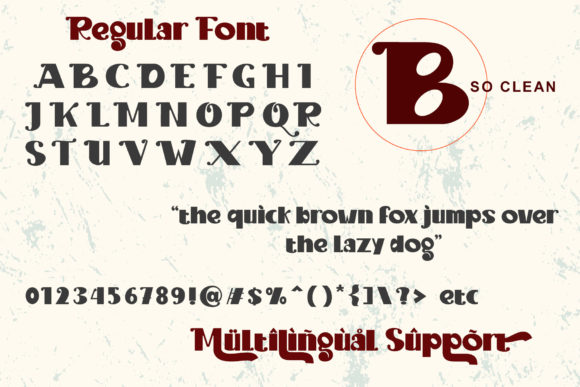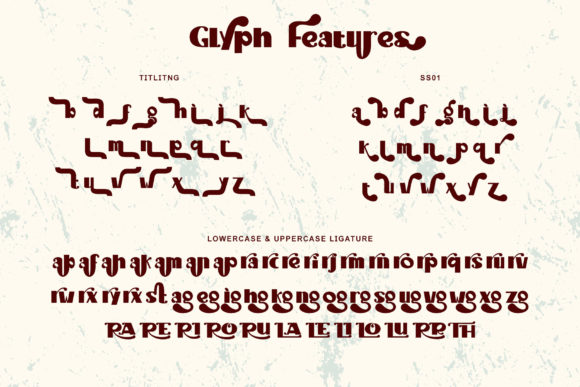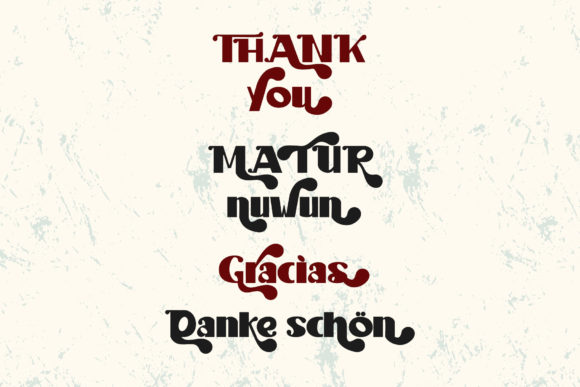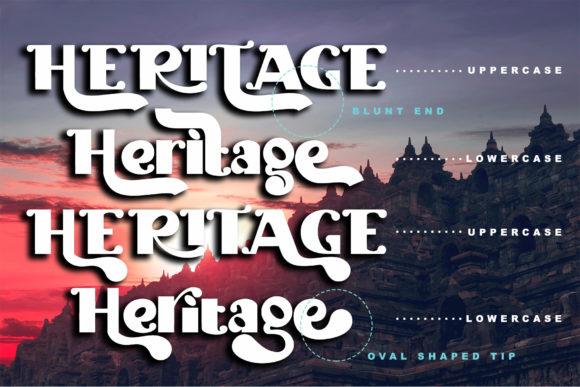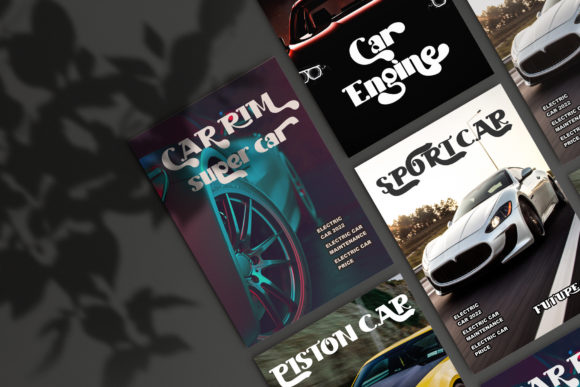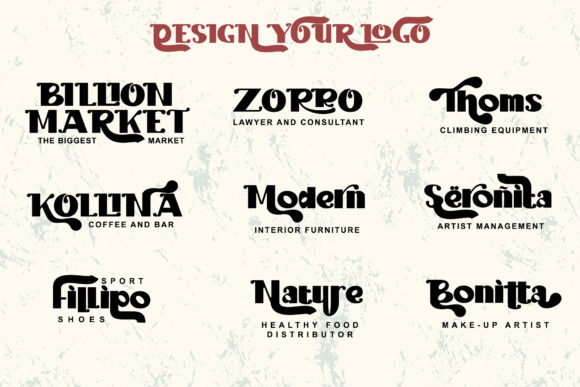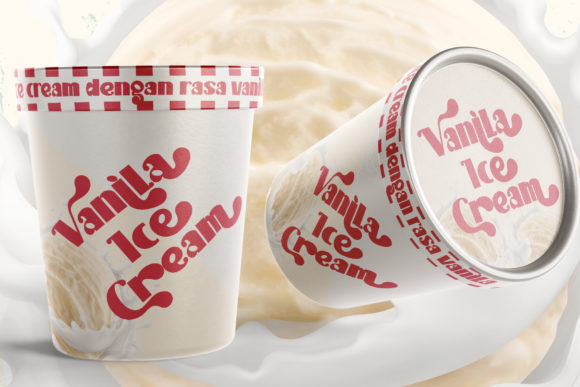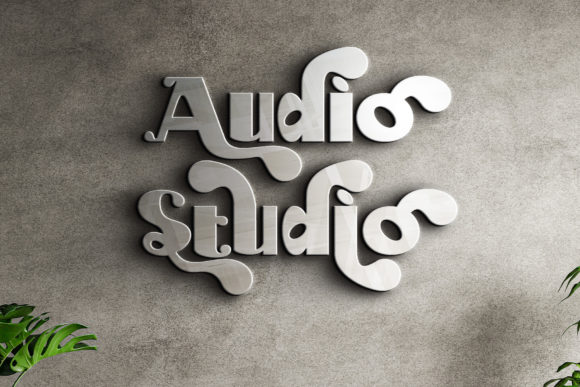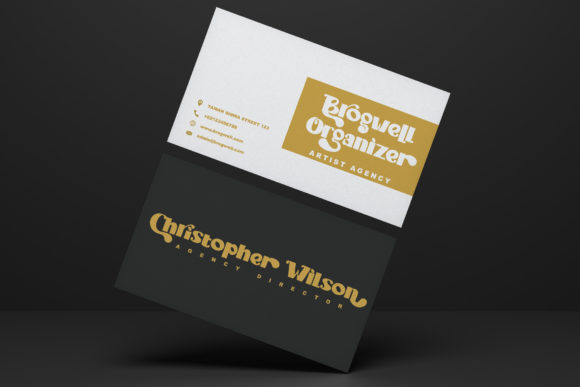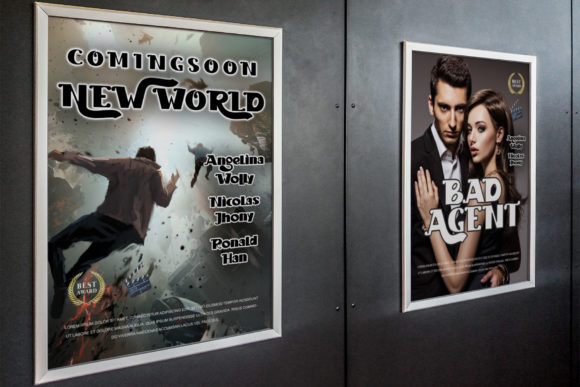
Brilliant Fighter Font
BRILLIANT FIGHTER FONT SPECIMEN
Introducing Brilliant Fighter, a gorgeous and truly unique slab serif font that captivates with its neat and beautiful arrangement of letters. This typeface is a stunning addition to any design, seamlessly blending into both formal and non-formal projects. With its masterful design, Brilliant Fighter is a must-have font that will elevate your creative endeavors.
The beauty of Brilliant Fighter lies in its exquisite letterforms, meticulously crafted to create a visually pleasing and harmonious composition. Each letter is thoughtfully arranged, resulting in a typeface that exudes elegance and sophistication. Whether used in formal designs such as invitations, certificates, or corporate materials, or in more casual applications like posters, social media graphics, or personal projects, Brilliant Fighter adapts effortlessly and adds a touch of distinction to your work.
One of the standout features of Brilliant Fighter is its uniqueness. The font stands apart from the crowd, showcasing its own character and style. Its distinctive letterforms bring a sense of individuality to your designs, ensuring that they leave a lasting impression on viewers.
Brilliant Fighter’s versatility extends beyond its visual appeal. The font is PUA encoded, which means accessing all the glyphs and swashes is a breeze. This feature provides you with endless possibilities to customize and personalize your designs, adding flourishes, swashes, and decorative elements effortlessly.
Whether you’re designing logos, branding materials, invitations, packaging, or any other creative project, Brilliant Fighter is a font that will truly shine. Its neat and beautiful arrangement of letters creates a captivating visual experience that draws the viewer in and leaves a lasting impression.
In summary, Brilliant Fighter is a gorgeous and unique slab serif font that effortlessly blends into both formal and non-formal designs. Its masterful design, versatility, and access to various glyphs and swashes make it a must-have font for designers and creatives alike. Let Brilliant Fighter be your go-to typeface, infusing your projects with beauty, elegance, and a touch of individuality.